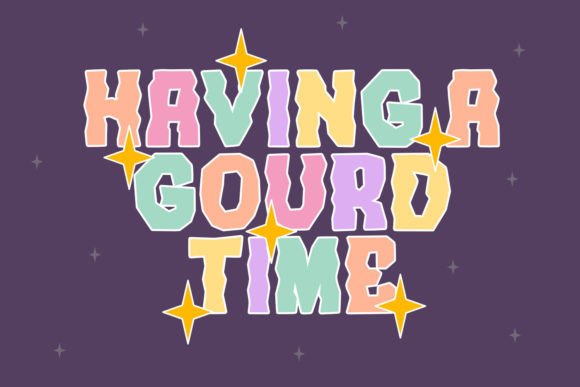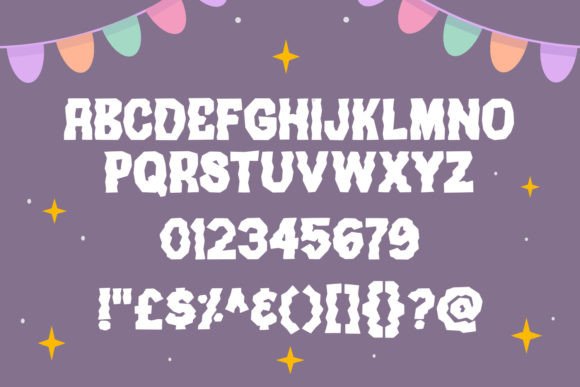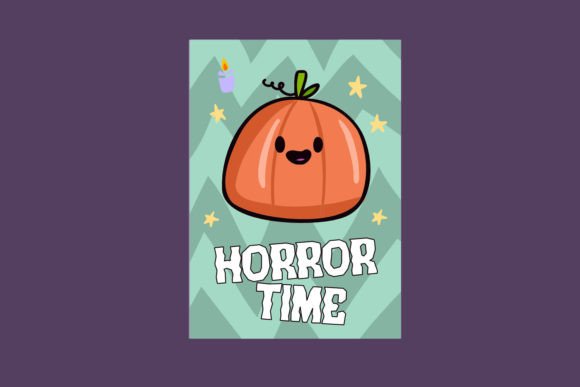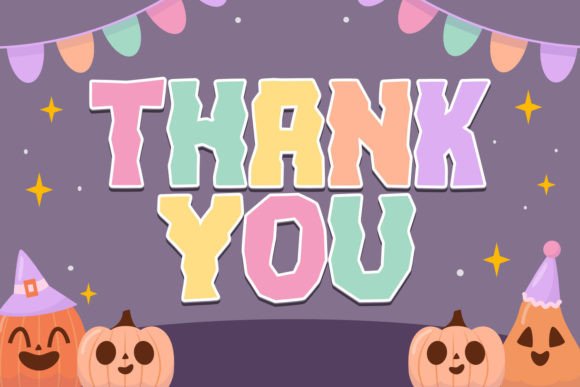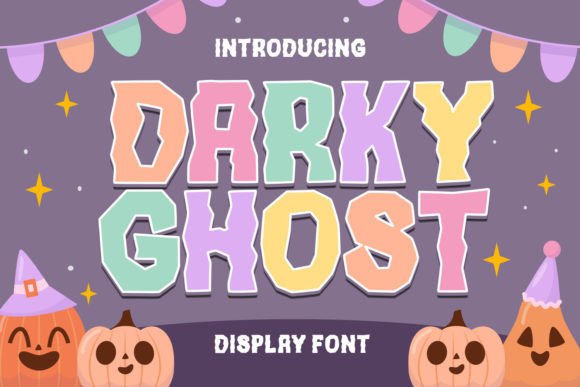
Unleash the Spooky Charm with Darky Ghost Font: A Halloween Display Font like No Other
As the spookiest time of the year approaches, designers and crafters are on the lookout for the perfect font to add a haunting touch to their Halloween-themed designs. Look no further than the “Darky Ghost” font, a captivating Halloween display font that combines a vibrant and colorful aesthetic with an eerie and creepy twist. This font is sure to bring a unique, playful spookiness to your Halloween projects, making it a must-have for anyone looking to create eye-catching posters, party invitations, and more.
A Font that Embodies the Spirit of Halloween
“Darky Ghost” is more than just a font – it’s an experience. It’s a journey into a world of ghostly delight, where the boundaries between fun and fright are blurred. This font uses a palette of rich, dark colors to create an atmosphere of mystery and intrigue, perfect for capturing the essence of a colorful but spooky Halloween night. Whether you’re designing a poster for a haunted house, a party invitation for a spooky soiree, or a social media graphic for a Halloween-themed campaign, “Darky Ghost” is the perfect choice.
What Sets Darky Ghost Apart
So, what makes “Darky Ghost” stand out from other Halloween fonts? Here are just a few features that make it a cut above the rest:
- Vibrant and Colorful Aesthetic: Unlike other Halloween fonts that can be dull and overused, “Darky Ghost” brings a fresh and vibrant aesthetic to the table. Its colorful design ensures that your Halloween projects will pop and grab attention.
- Eerie and Creepy Twist: While “Darky Ghost” is playful and fun, it also has an eerie and creepy twist that will send shivers down the spine. This font is perfect for designers who want to create a spooky atmosphere without being too on-the-nose.
- Rich, Dark Colors: The font’s palette of rich, dark colors creates a sense of mystery and intrigue, perfect for Halloween-themed designs. From deep purples and blues to rich blacks and greys, “Darky Ghost” has a color scheme that’s sure to impress.
How to Use Darky Ghost in Your Designs
One of the best things about “Darky Ghost” is its versatility. This font can be used in a wide range of designs, from posters and party invitations to social media graphics and more. Here are just a few ideas to get you started:
- Halloween Party Invitations: Create eye-catching party invitations that will set the tone for a spooktacular celebration. Use “Darky Ghost” to add a playful yet eerie touch to your designs.
- Haunted House Posters: Design a poster for a haunted house or spooky attraction using “Darky Ghost”. This font is sure to grab attention and create a sense of excitement and fear.
- Social Media Graphics: Add a touch of Halloween spirit to your social media graphics using “Darky Ghost”. This font is perfect for creating eye-catching Facebook posts, Twitter headers, and Instagram graphics.
Tips for Getting the Most out of Darky Ghost
To get the most out of “Darky Ghost”, here are a few tips to keep in mind:
- Experiment with Colors: While “Darky Ghost” comes with a built-in color scheme, don’t be afraid to experiment with different colors and combinations. This font is versatile and can be used with a wide range of colors and designs.
- Play with Texture and Patterns: Add an extra layer of depth and interest to your designs by incorporating texture and patterns. “Darky Ghost” looks great with spooky textures like cobwebs, bats, and jack-o-lanterns.
- Use it Sparingly: While “Darky Ghost” is a fun and playful font, it’s best used sparingly. Use it as a headline or title font, and pair it with a simpler font for body text.
In conclusion, “Darky Ghost” is a captivating Halloween display font that’s sure to bring a unique, playful spookiness to your designs. With its vibrant and colorful aesthetic, eerie and creepy twist, and rich, dark colors, this font is perfect for adding a haunting touch to your Halloween projects. Whether you’re a designer, crafter, or simply someone who loves Halloween, “Darky Ghost” is a must-have font that’s sure to impress. So why wait? Download “Darky Ghost” today and unleash the spooky charm in your designs!